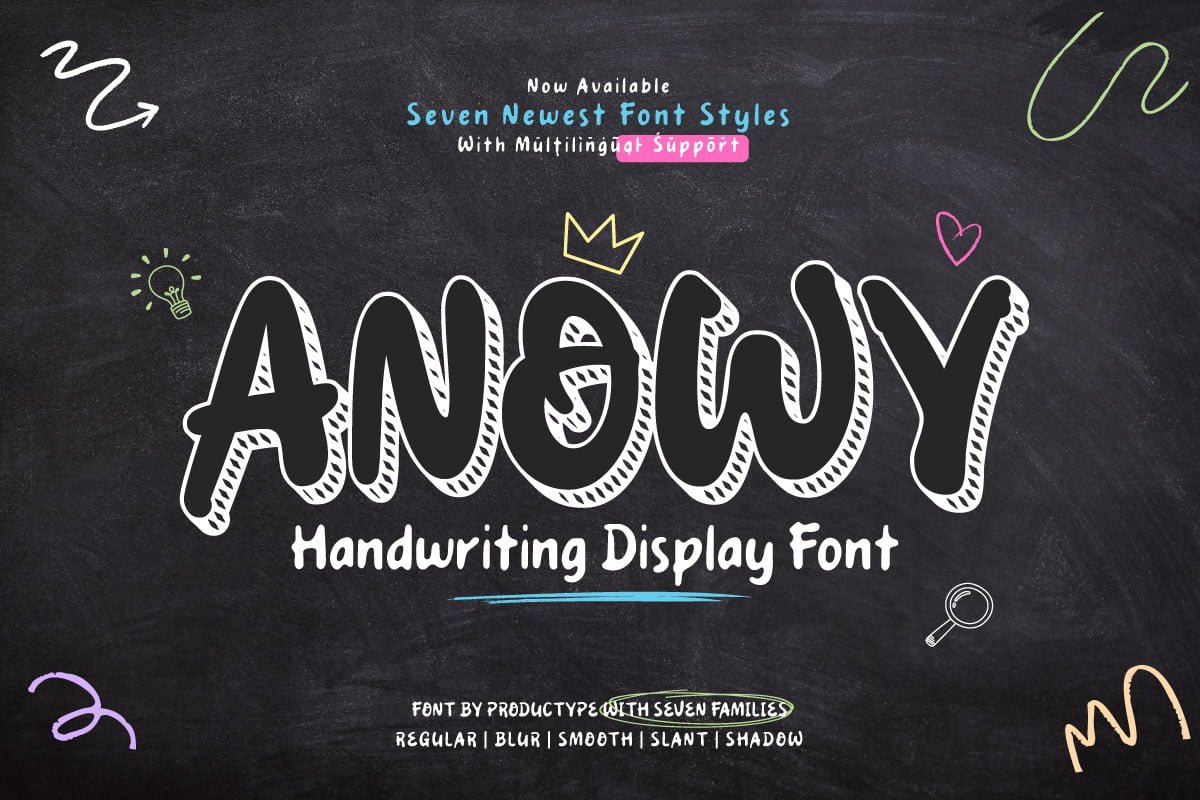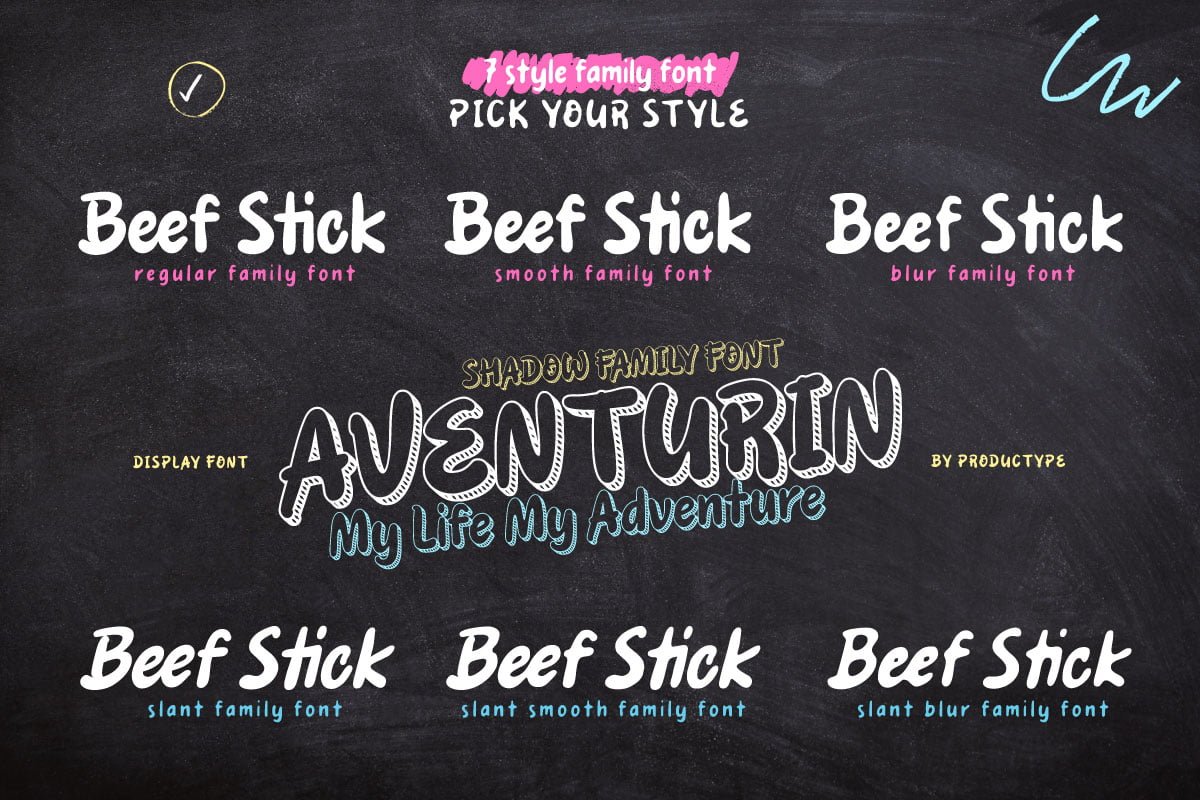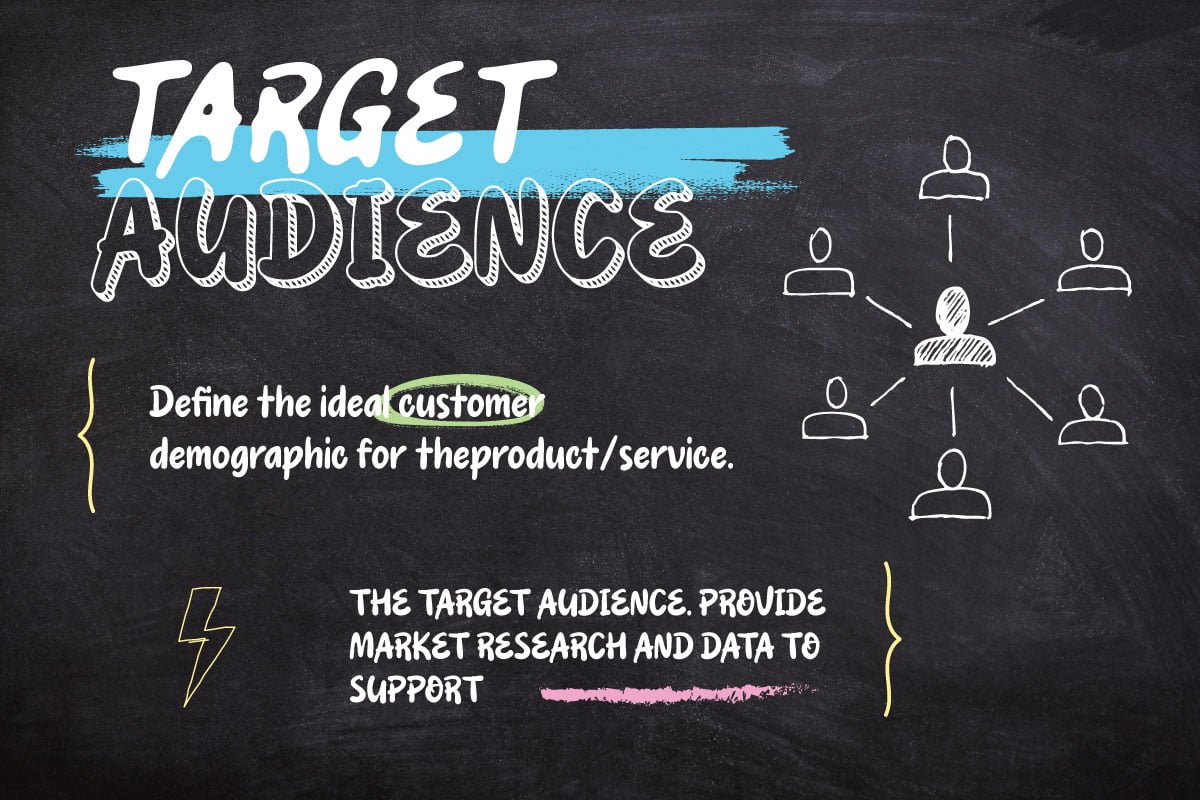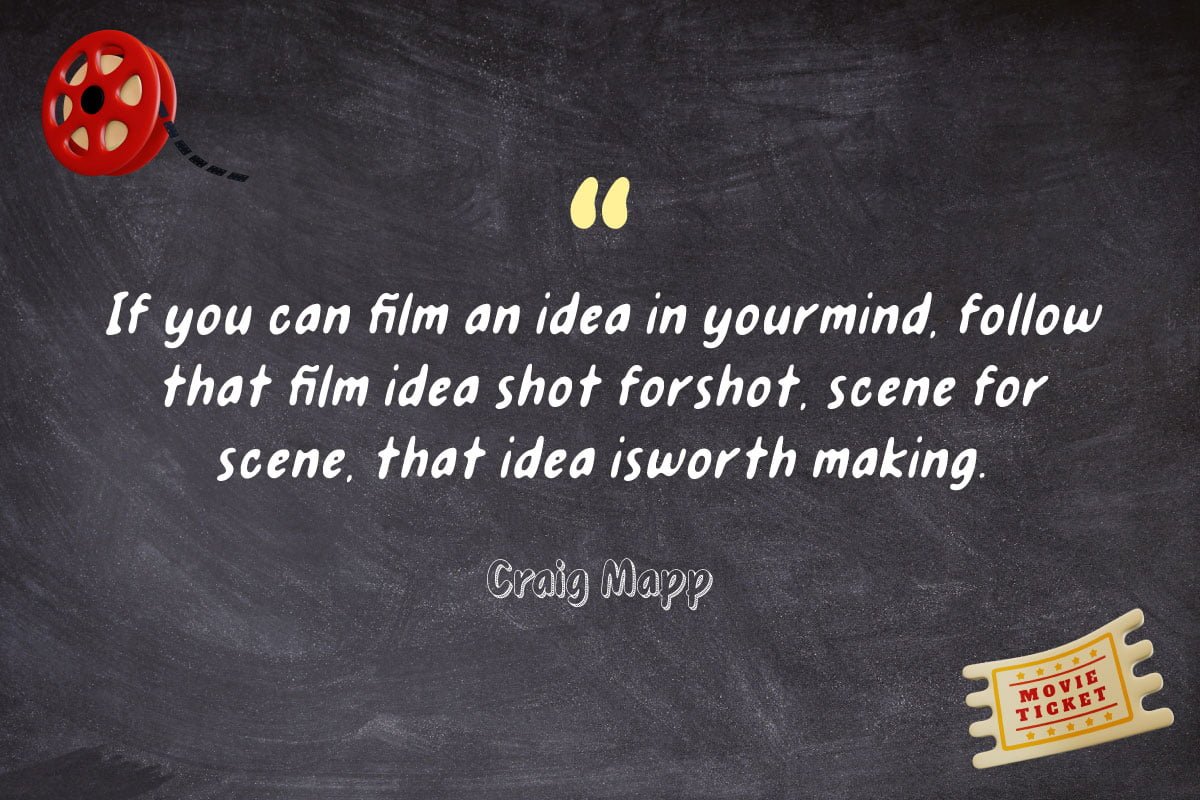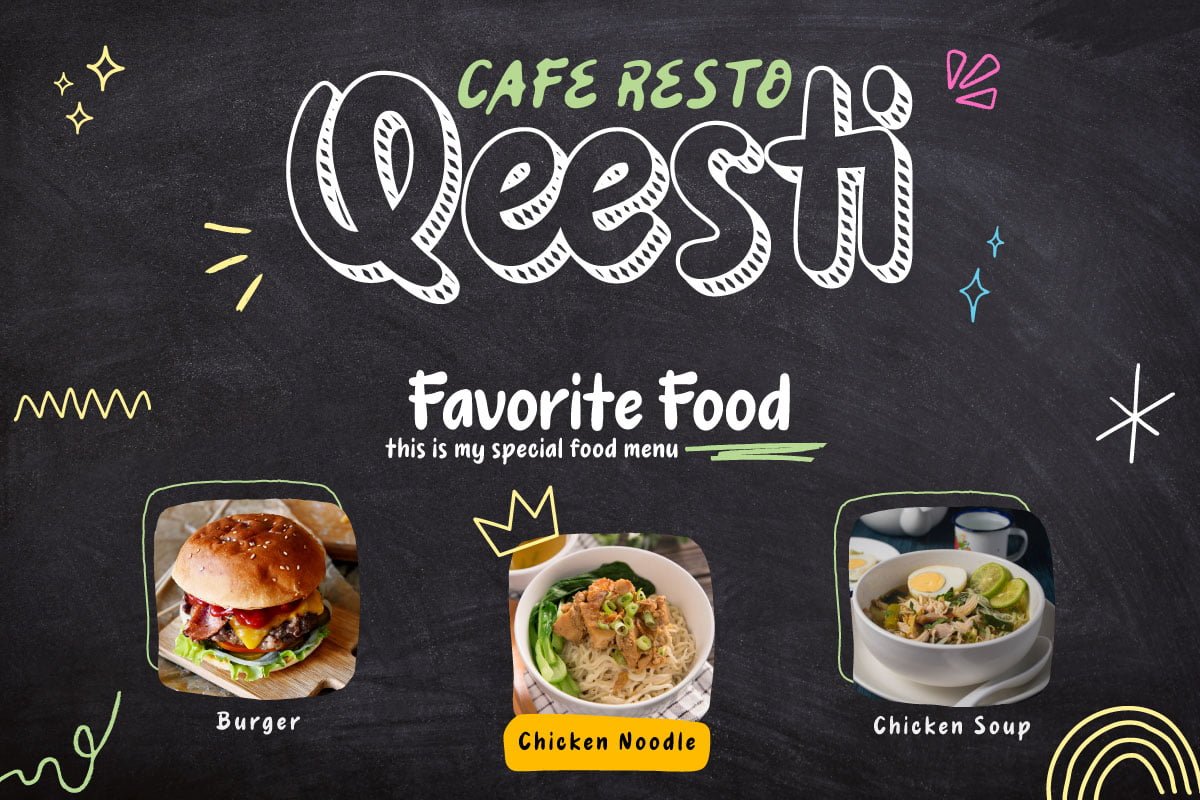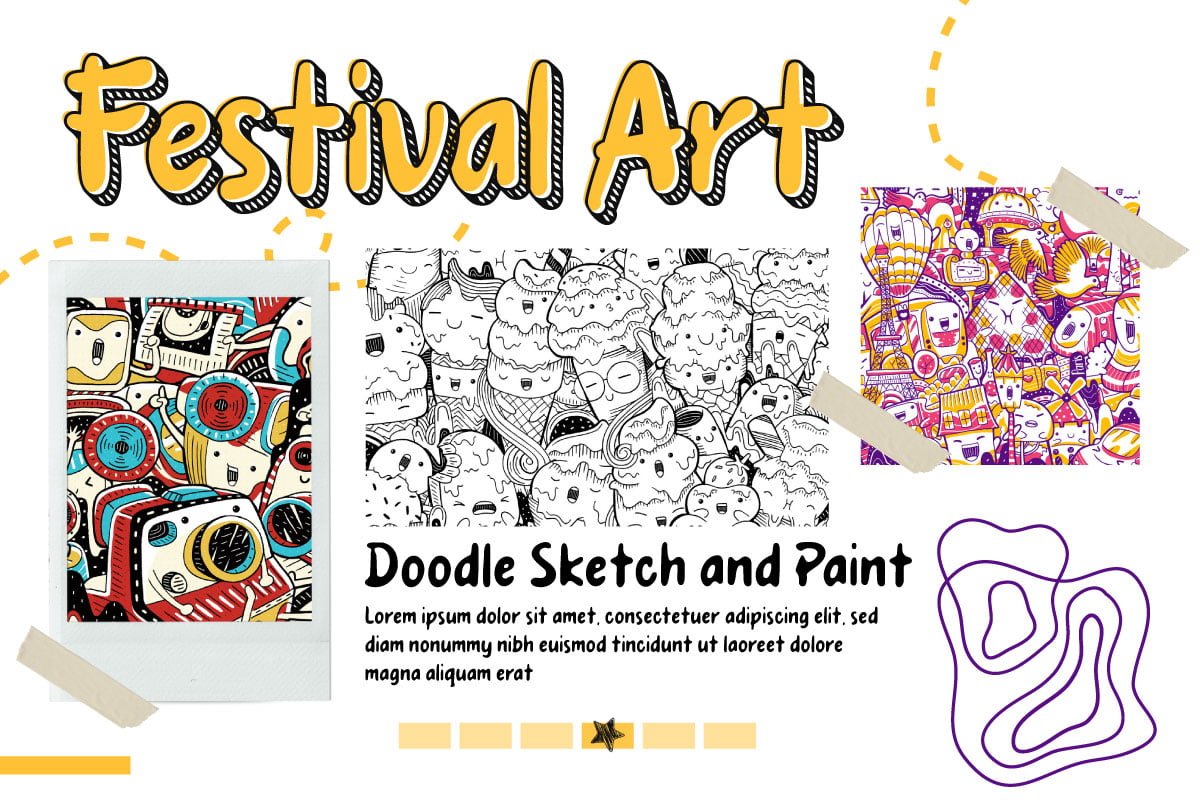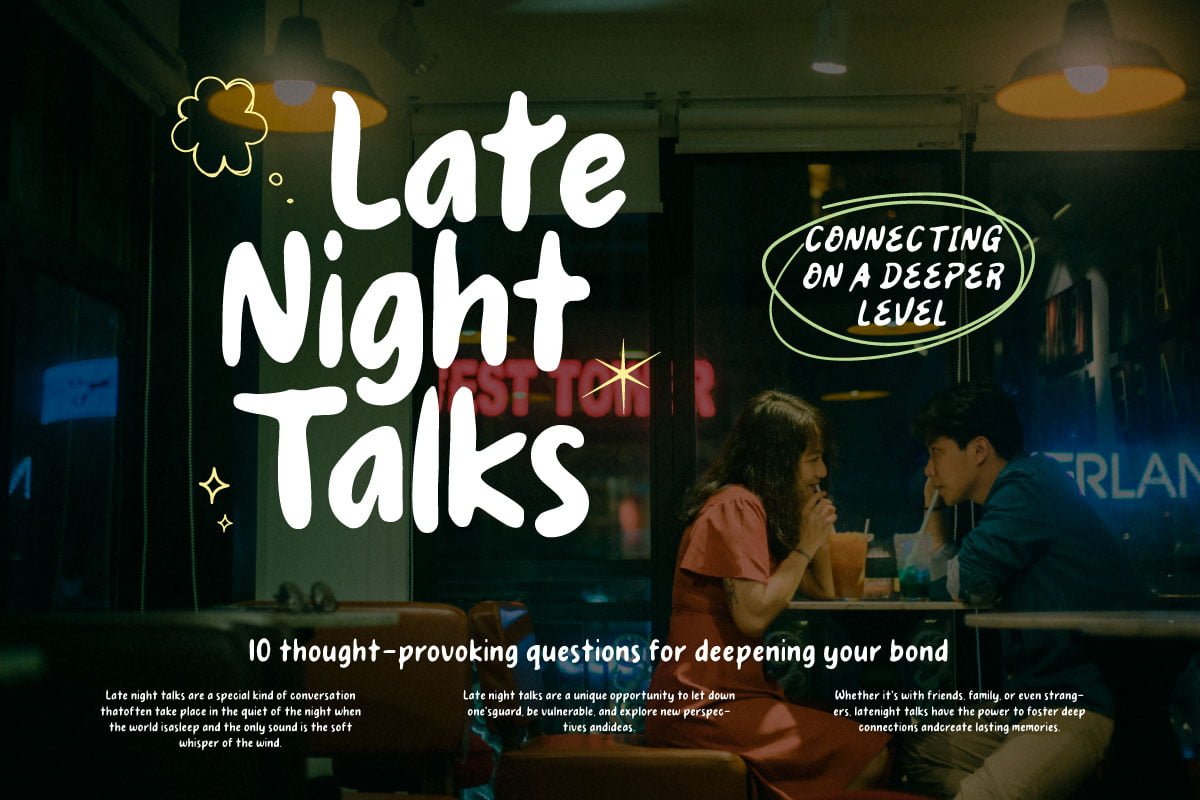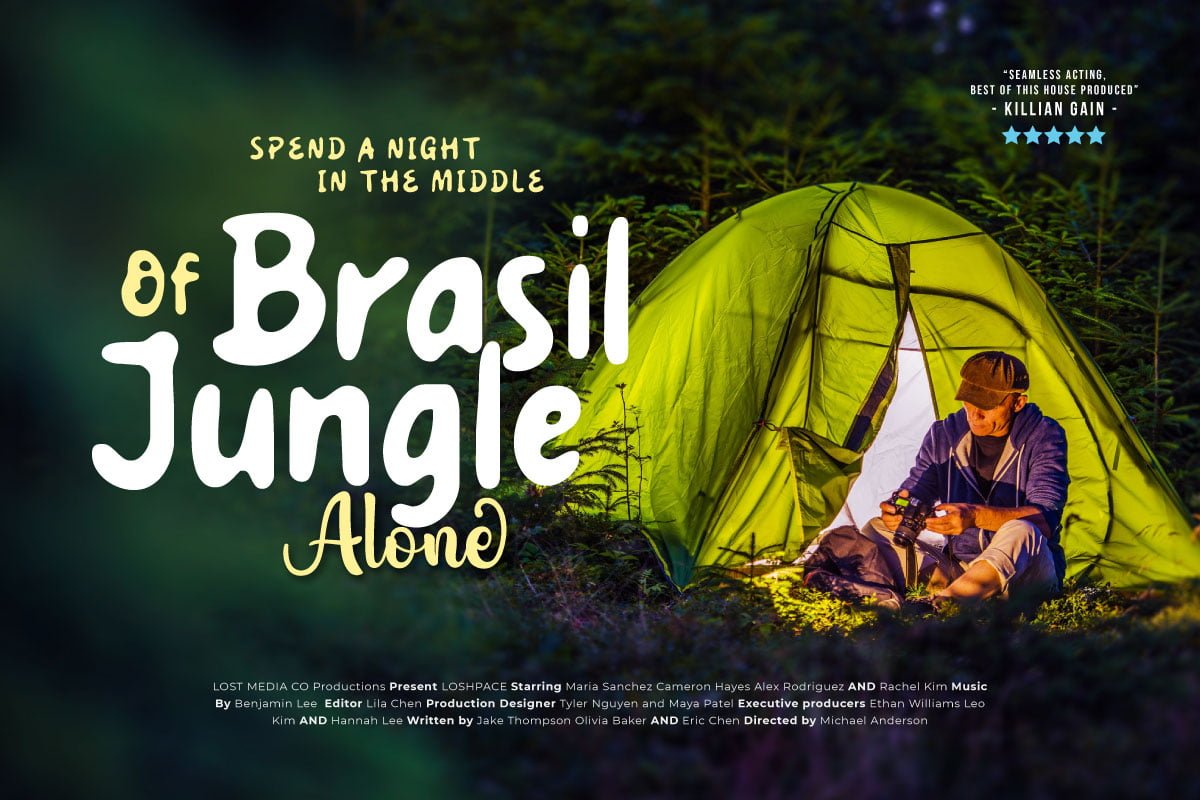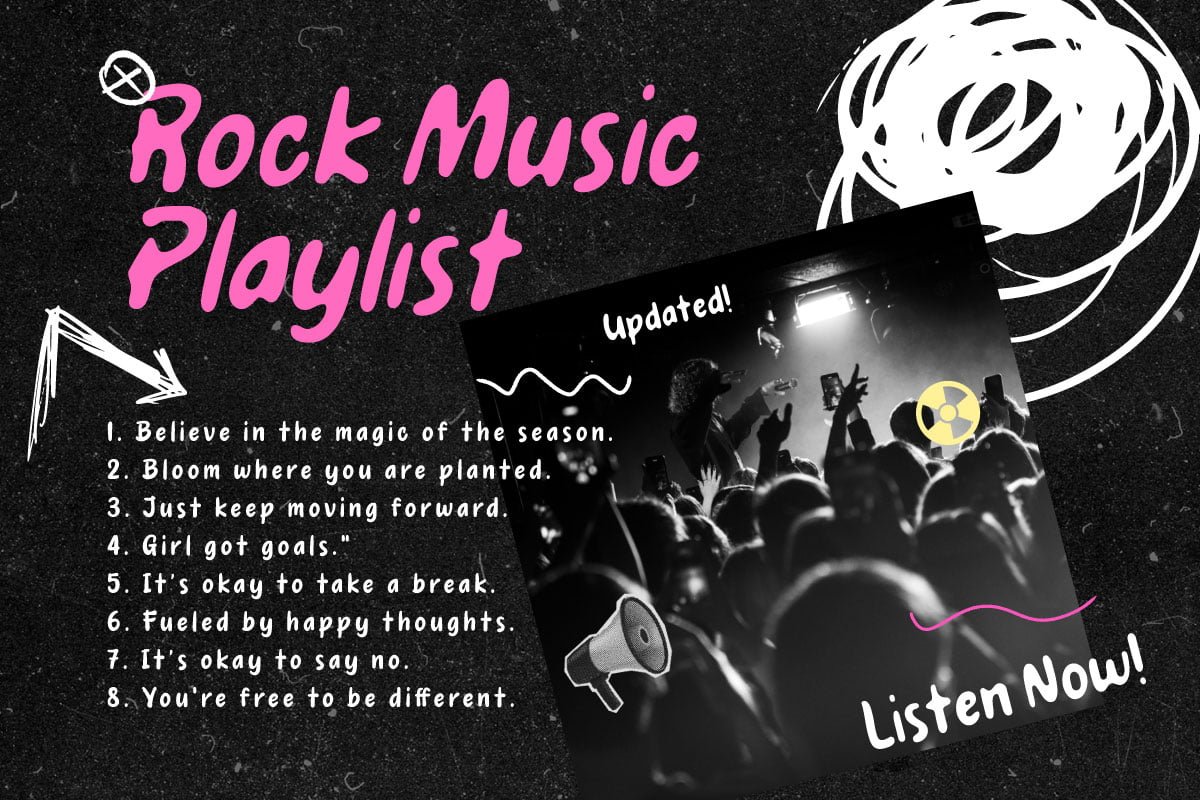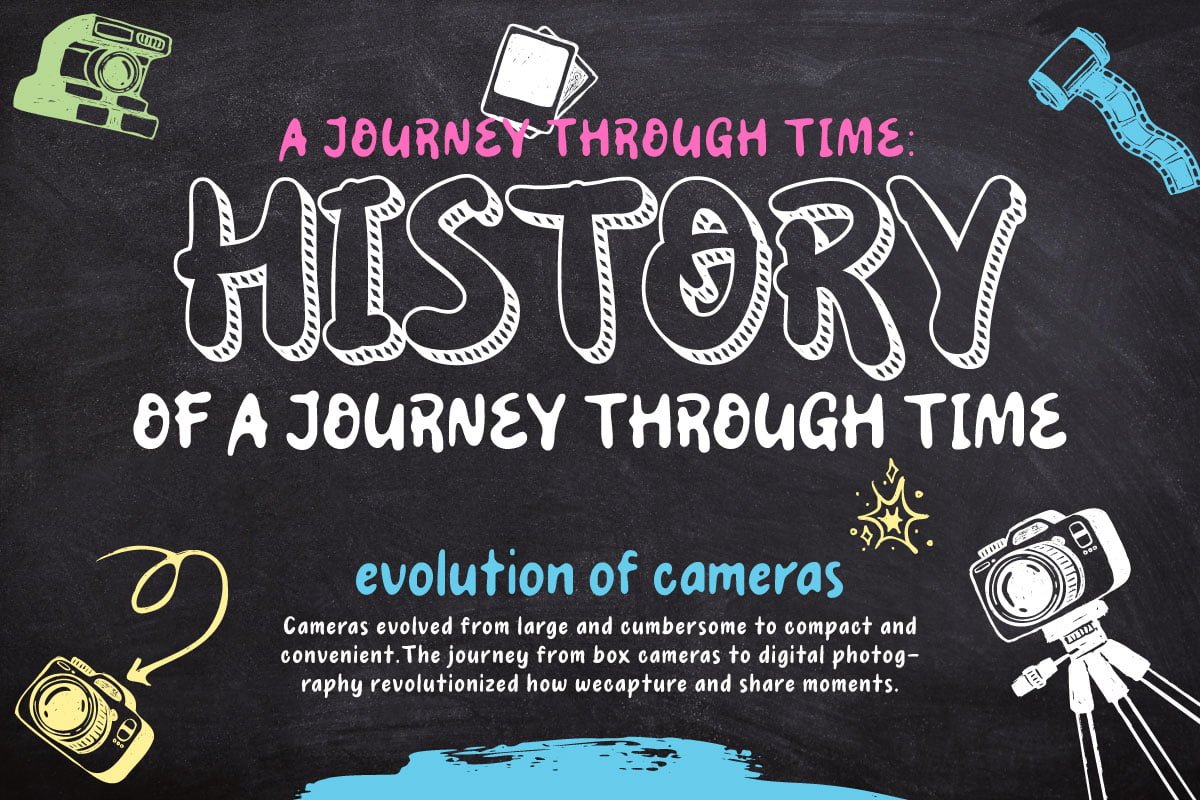
Anowy – Display Font
Regular
Smooth
Slant
Slant-Blur
Slant-Smooth
Blur
Shadow
Welcome to the world of Anowy, where handwriting seduces with impressive display dynamics. This font offers seven font styles including Regular for a classic look, Slant for a dynamic slanted touch, Blur for a natural ink writing effect, Smooth for softness, and Shadow for a dramatic feel.
The specialty of the Anowy font is Seven Tiered Styles: Explore a variety of seven Anowy style variants to create a unique and attractive design according to your wishes.
A Touch of Handwritten Vulnerability: Every character in Anowy provides a touch of seductive handwriting, creating an air of authenticity and humanity in every detail.
Anowy is an ideal choice for projects that require a beautiful handwritten touch and a diversity of styles. Whether you’re designing promotional materials, greeting cards, or other creative works of art, these fonts bring an unmatched personal element.